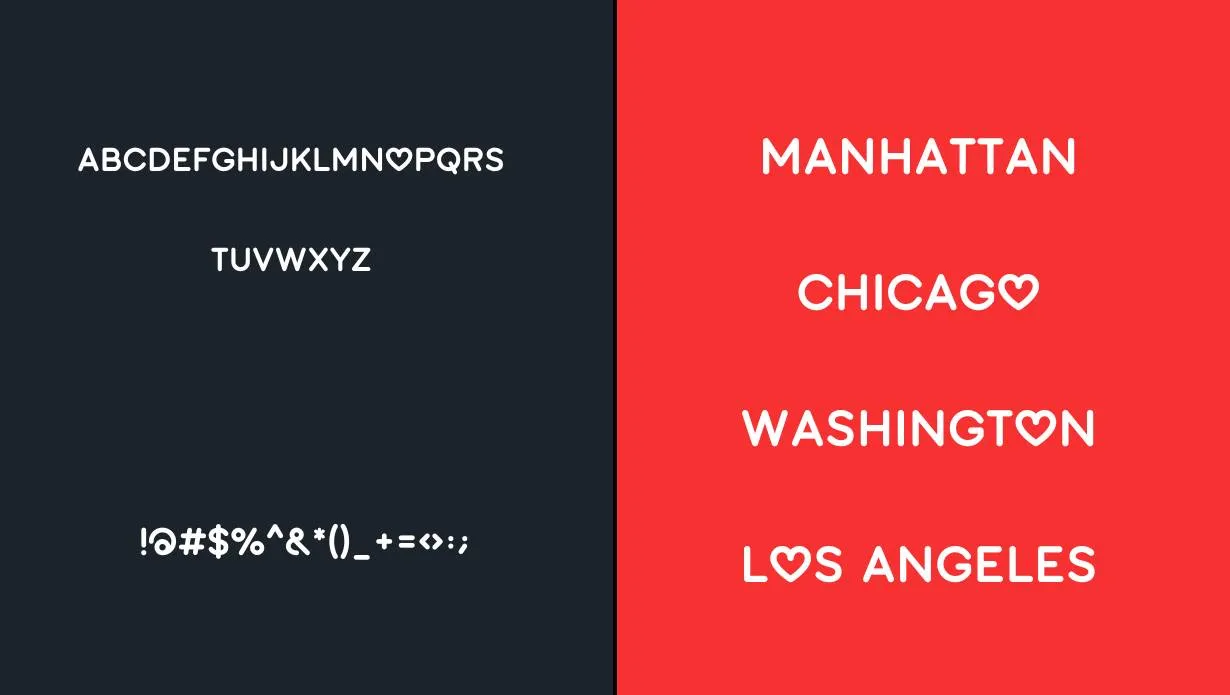
Sant Joan Despi Font is actually inspired by the European sans-serifs of the early 20th century yet, it has a touch of modernity and charm. It is available in only a single regular style that comprehends a complete set of characters that include letters, symbols, numbers, fractions, ligatures, and accented characters.
This font style gets a new shape after making a pair with nasa font.
| Name | Sant Joan Despi Font |
| Designer | Forma & Co |
| Style | Sans Serif |